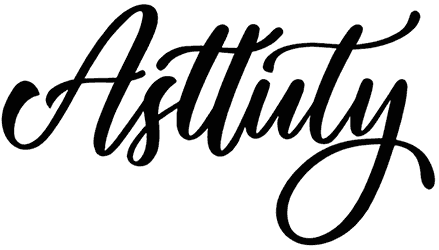
Galahad Font
Wanna try something unique for your words? Take a look at today’s font! All the characters in the Galahad are designed with a bold handwritten style and a cursive effect that gives a soft and approachable sense to your presentation.
You can use this font for decorative purposes and get creative with your looks. This script font is popular in summer flyers, and in this version, you can go crazy with all the bright colors to make it more eye-catching.